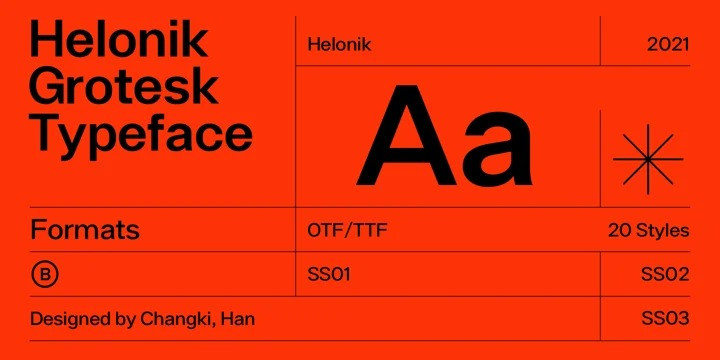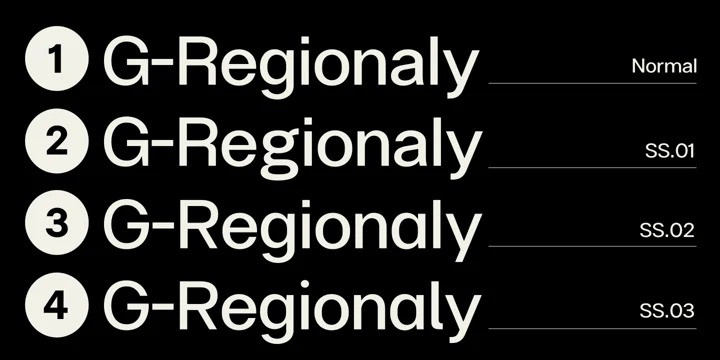
Helonik Font
Helonik Sans Serif Font
It’s a clean and minimalistic Sans Serif font family manufactured by Ckhans Fonts. Balanced letter height and width – based on analysis of current design trends. Helonik comprises 22 fonts, consisting of three distinct optical sizes: Display. Each one has been carefully tailored to the demands of its size. The larger Display versions are drawn to show off the subtlety of Helonik and spaced with headlines in mind, while the Text sizes focus on legibility, using robust strokes and comfortably loose spaces. In the typeface, each weight includes extended language support, icons, fractions, tabular figures, arrows, ligatures and more.
Perfectly suited for graphic design and any display use. It could easily work for branding, web, signage, corporate as well as for editorial design. documents and folders, mobile interface.